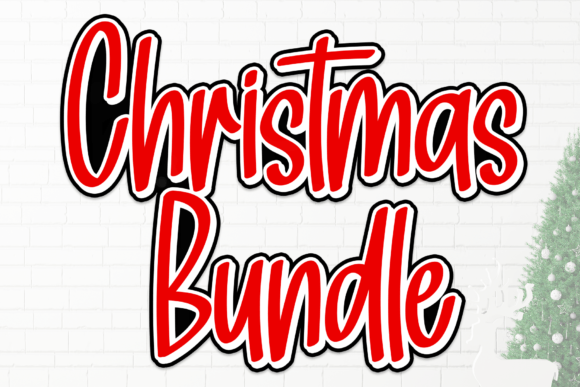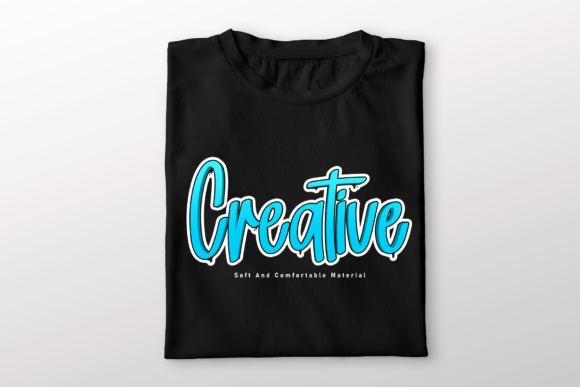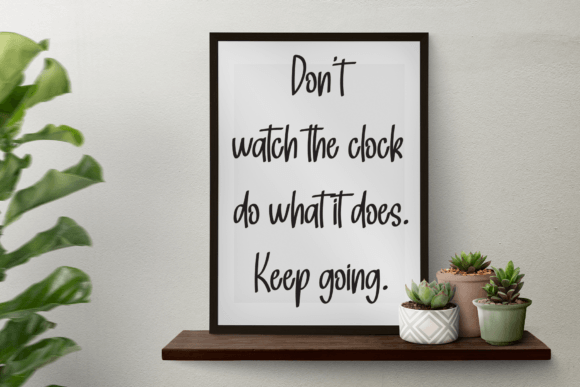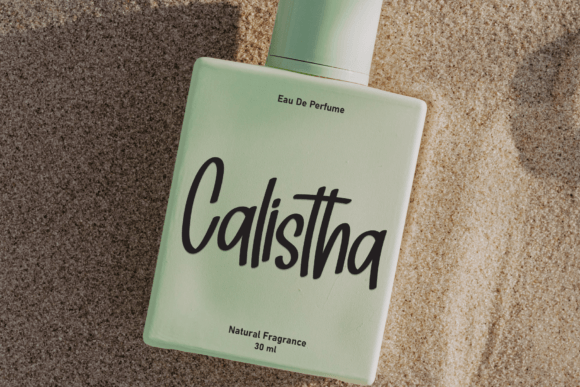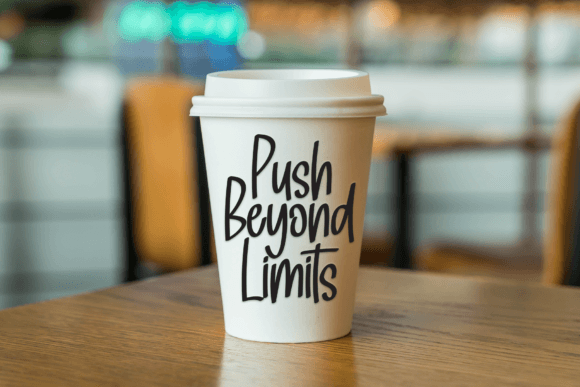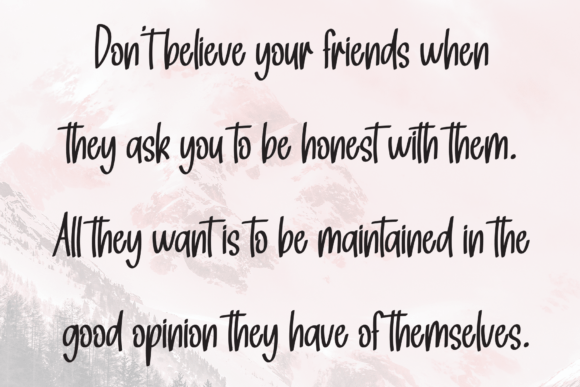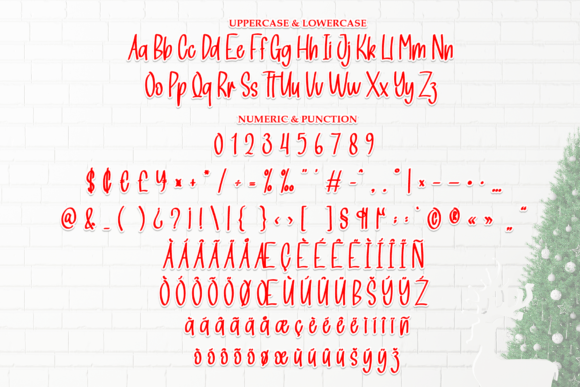
Deck the Halls with Joy: Introducing the Christmas Bundle Font
There’s something special about the holiday season – the twinkling lights, the sound of carolers, and the warmth of loved ones gathered around the tree. As a designer, there’s no better feeling than capturing that magic in a creative project, whether it’s a festive card or a holiday-themed website. And that’s where the Christmas Bundle Font comes in – a delightful handwritten font that wraps up the essence of the season in a playful, whimsical package.
With the Christmas Bundle Font, you can infuse your designs with the warmth and joy of the holiday season. Whether you’re crafting greeting cards, festive banners, or spreading holiday cheer through your designs, this font adds a delightful handwritten flair that embodies the merriment of the season. The Christmas Bundle Font is a valuable addition to any designer’s toolkit, bringing a touch of fun and festivity to your projects.
Christmas Bundle Font Key Features
- Unique Characteristics: The Christmas Bundle Font features a unique blend of festive and modern elements, including snowflakes, holly leaves, and other winter-themed designs, making it perfect for holiday-themed projects.
Christmas Bundle Font Review
Overall, I think the Christmas Bundle Font is a nice addition to any holiday-themed project. Here’s what I like about it:
- ✨ Beautiful, festive graphics and icons that really capture the holiday spirit.
- ✨ A wide range of font styles and sizes to choose from, making it easy to customize your project.
- ✨ The font is highly legible, even at smaller sizes, which is a must for any design project.
However, there are a few things that I think could be improved:
- ⚠️ The font is only available in a limited number of languages, which may be a problem for designers who need to create multilingual projects.
- ⚠️ Some of the graphics and icons feel a bit overused and lack originality.
- ⚠️ The font could benefit from more color options to give designers more flexibility when it comes to branding and design.
Overall, I think the Christmas Bundle Font is a solid choice for any holiday-themed project, but it’s not without its limitations. With a bit more development and refinement, I think this font could be truly exceptional.
The Christmas Bundle Font is perfect for creating holiday-themed designs, including:
Christmas cards and invitations
Holiday graphics and illustrations
Festive presentations and reports
Custom holiday stationery and envelopes